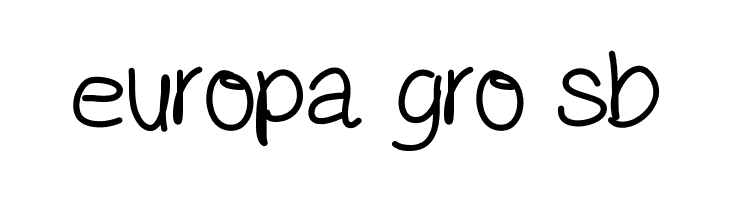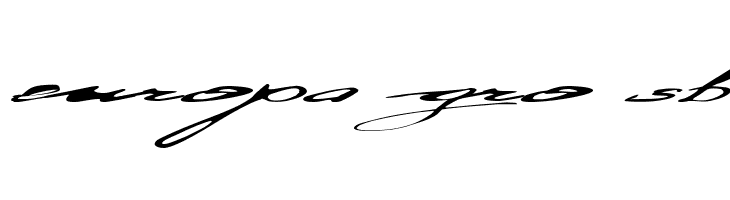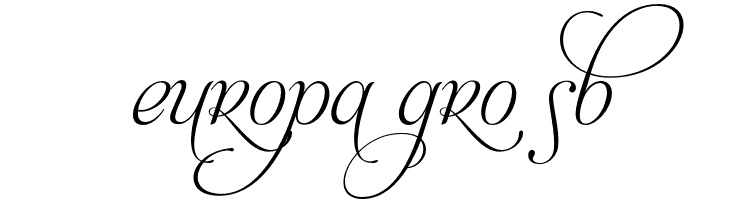
( Fonts by David Kerkhoff - www.hanodedphotography.com )
An elegant, cursive script font with ornate, flowing letters.
( www.leodsen.com )
A casual, handwritten font with a warm, personal touch.
( Fonts by Des Gomez )
A playful and whimsical handwritten font with fluid, looping letterforms.